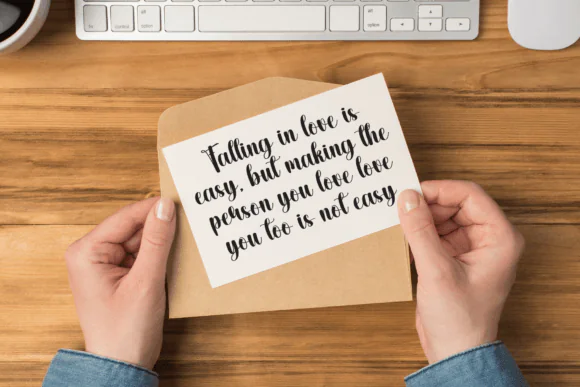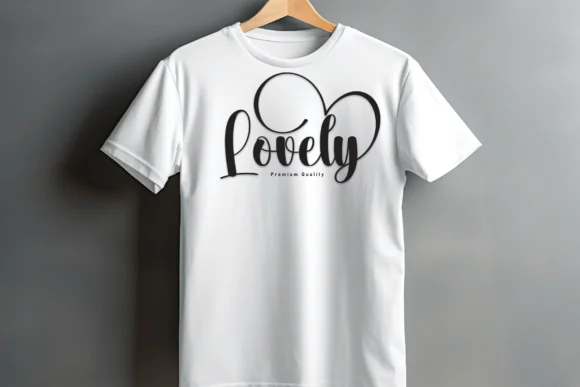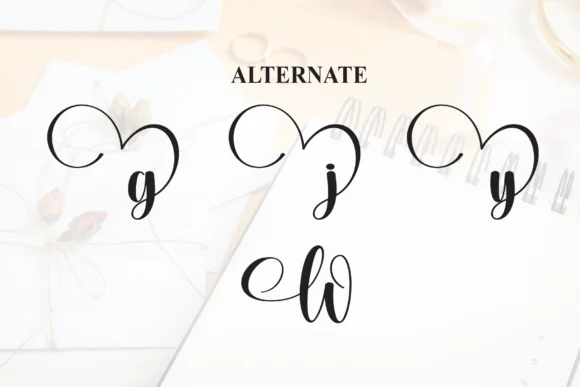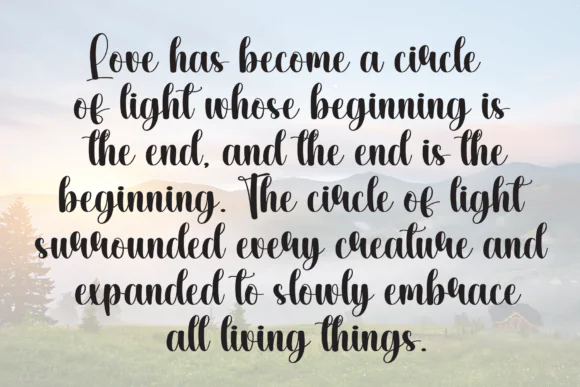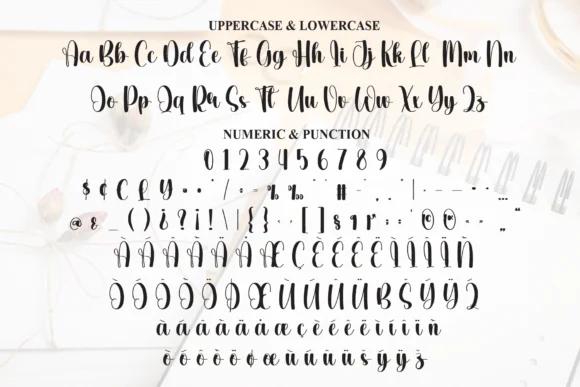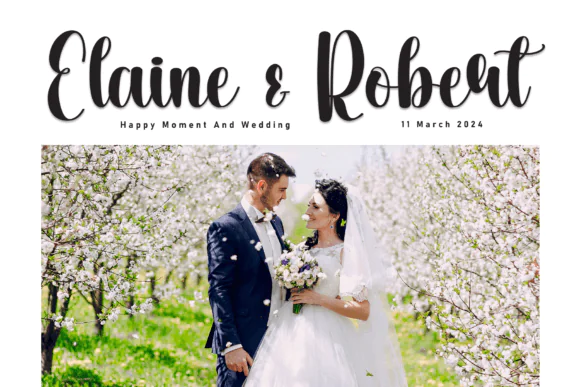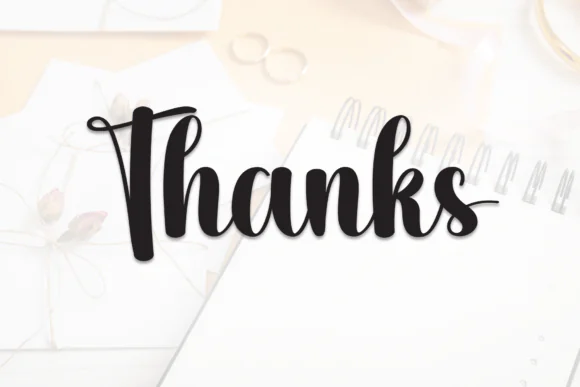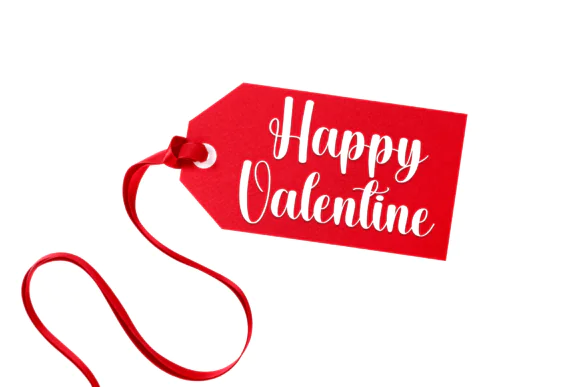
Create warm, charming, and beautifully personal designs with Deary Wedding Font, a delightful handwritten font with a playful yet legible style. This font brings a natural handmade feel to your creative projects, making it perfect for wedding invitations, greeting cards, branding, quotes, stationery, social media graphics, product packaging, mugs, shirts, stickers, and printable designs.
Deary Wedding Font has natural strokes and charming irregularities that give every design a soft, authentic, and handcrafted appearance. Its friendly handwritten personality makes it suitable not only for wedding designs but also for romantic projects, feminine branding, small business logos, thank you cards, save-the-date cards, craft designs, and lifestyle-themed digital artwork.
This font is a great choice for designers, crafters, wedding stationery creators, and small business owners who want to add warmth, character, and handmade charm to their typography.
Deary Wedding Font is a beautiful choice for creating romantic, heartfelt, and professional designs with a natural handwritten touch.